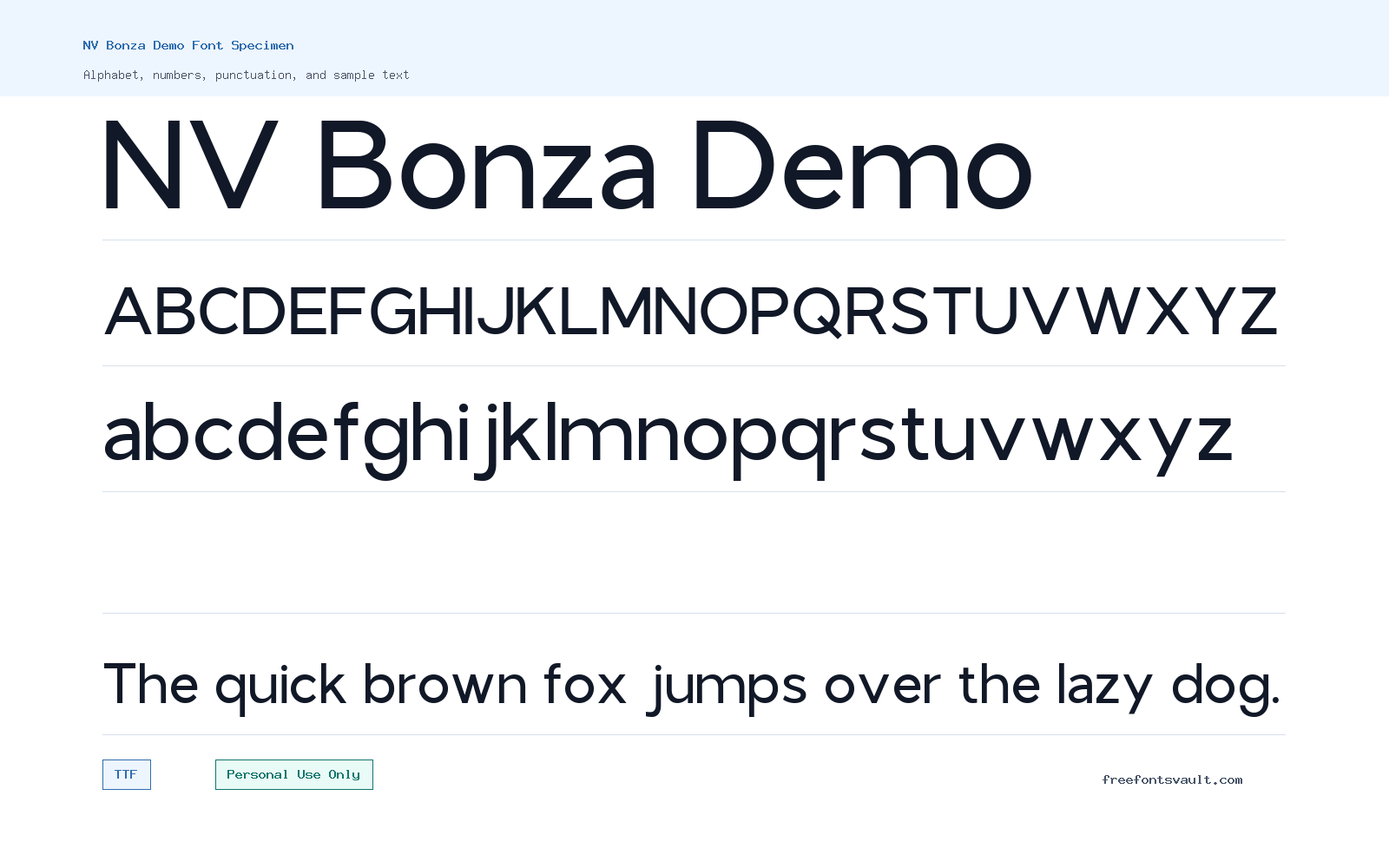
NV Bonza Demo
NV Bonza Demo font preview showing the family name
NV Bonza Demo Font
NV Bonza Demo font specimen showing alphabet, numbers, and sample text
• Designer Almer Muhammad Hafidz
• Foundry NovaraType
NV Bonza Demo font.
NV Bonza Demo is a personal-use sans serif font family from NovaraType, designed by Almer Muhammad Hafidz. It comes in TTF format with Regular and Bold styles, making it useful for testing clean headline ideas, short labels, and simple visual layouts before choosing the right license for a finished project.
About NV Bonza Demo
NV Bonza Demo has a straightforward sans serif setup with two practical weights: Regular and Bold. The Regular style works for lighter text previews, while the Bold style gives you a stronger option for headings, buttons, posters, and short attention-grabbing lines. Because the available files are demo fonts, the safest way to approach them is as testing fonts for personal drafts, mockups, and non-commercial experiments.
Use the preview tool to check how NV Bonza Demo handles your actual words rather than judging it only from the font name. Try uppercase titles, mixed-case phrases, numbers, punctuation, and short brand-style text. If the spacing feels tight or the letters lose clarity at smaller sizes, keep it for larger display use. For longer reading text, test several lines first, as many demo or display-focused sans serif fonts are better in short bursts than in full paragraphs.
• Sans serif styling makes it suitable for clean previews, short headings, labels, and simple layout mockups.
• Personal poster drafts, social graphics, title cards, and other short-text design experiments.
• Testing headline hierarchy with Regular and Bold weights before deciding whether to use the family in a finished project.
NV Bonza Demo is credited to designer Almer Muhammad Hafidz and foundry NovaraType.
Who designed NV Bonza Demo?
The designer is listed as Almer Muhammad Hafidz, with NovaraType listed as the foundry.
What is NV Bonza Demo best used for?
It is best treated as a personal-use demo font for previewing short text such as headings, poster drafts, labels, and social graphics. Test it at the size you plan to use before relying on it for longer text.